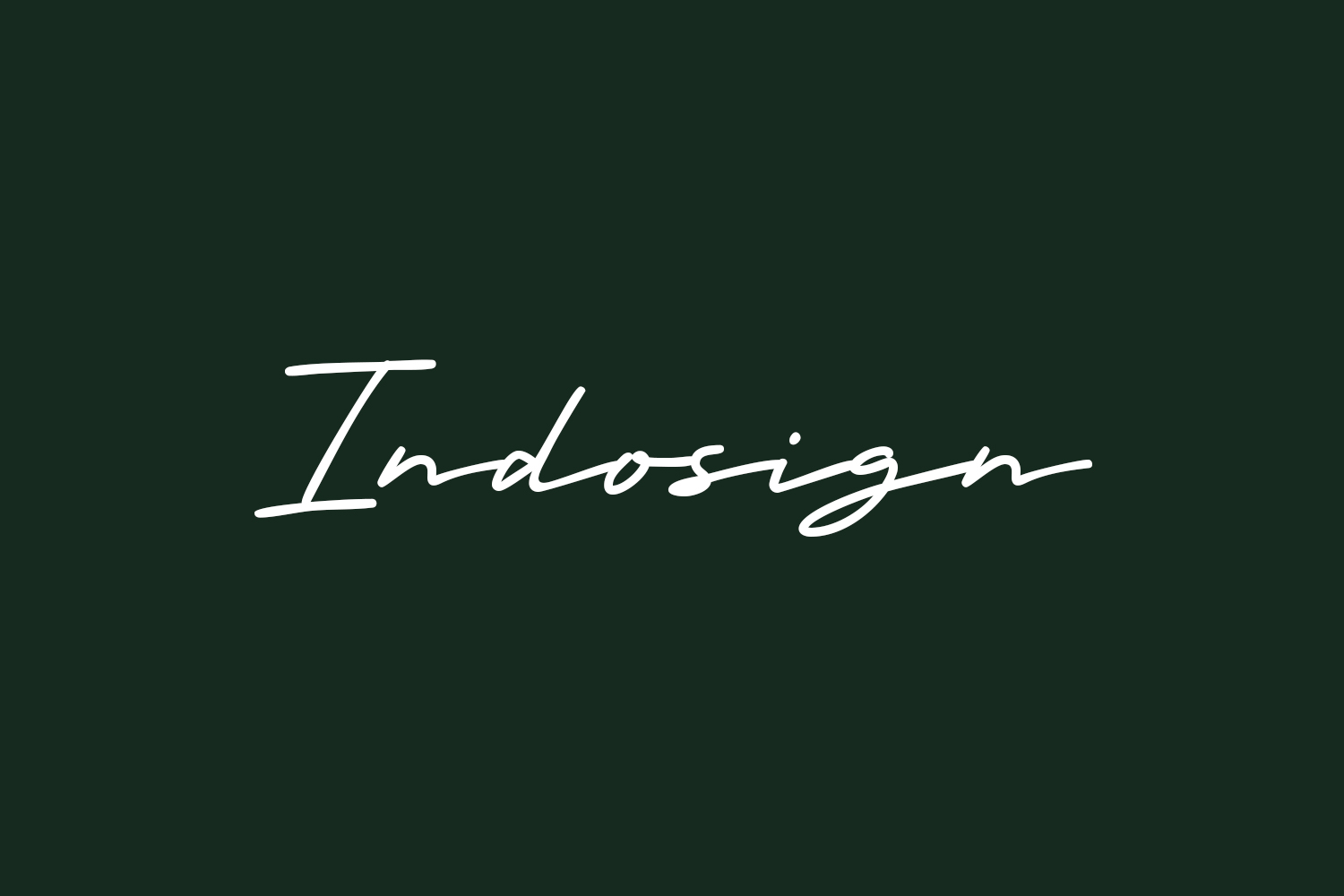
Indosign Free Font is a stunning and contemporary script font that exudes modernity and beauty. Whether you’re working on posters, logos, magazines, book covers, banners, or any other creative project, this font is a perfect fit. Unlock the potential of this amazing font and bring your designs to life with its exquisite style. Its versatility allows it to seamlessly integrate into a wide range of projects, enhancing your creative ideas and making them truly stand out! Don’t miss the opportunity to elevate your designs with Indosign’s captivating charm. Indosign Free Font is free for personal use only. Please purchase the full version for commercial use.